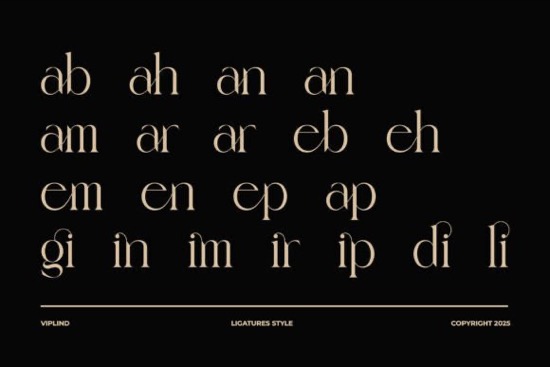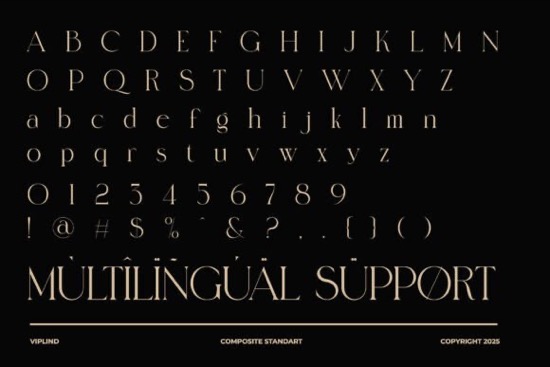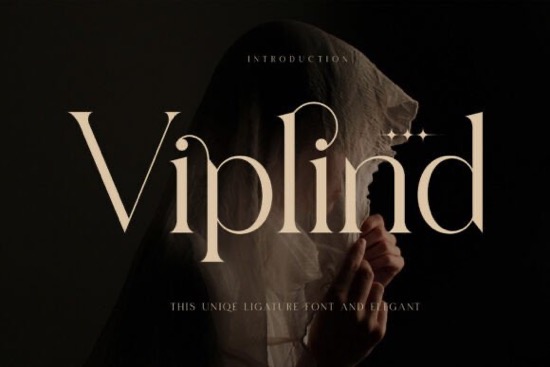
Viplind is an edgy and delicate urbant-style display font that evokes the beauty of fresh blooms and timeless elegance. With its bold yet refined ligatures, Viplind stands out as a sophisticated and feminine typeface. Perfect for upscale designs, whether for florals, fashion, or high-end branding, Viplind pairs the charm of classic serif styles with a modern twist. Every letter feels intentional, with a soft and graceful presence that elevates any project it touches.
Bring a touch of refinement and natural grace to your work with Viplind. Let this font breathe elegance into your designs, and watch them flourish with style and character.
Viplind Serif Font